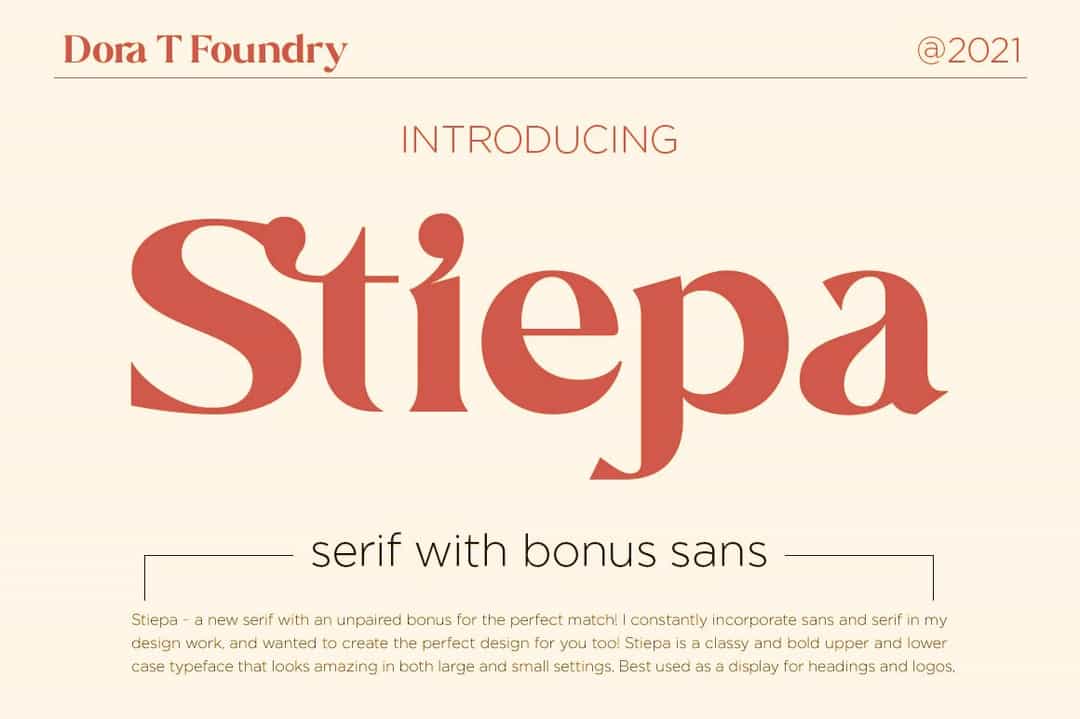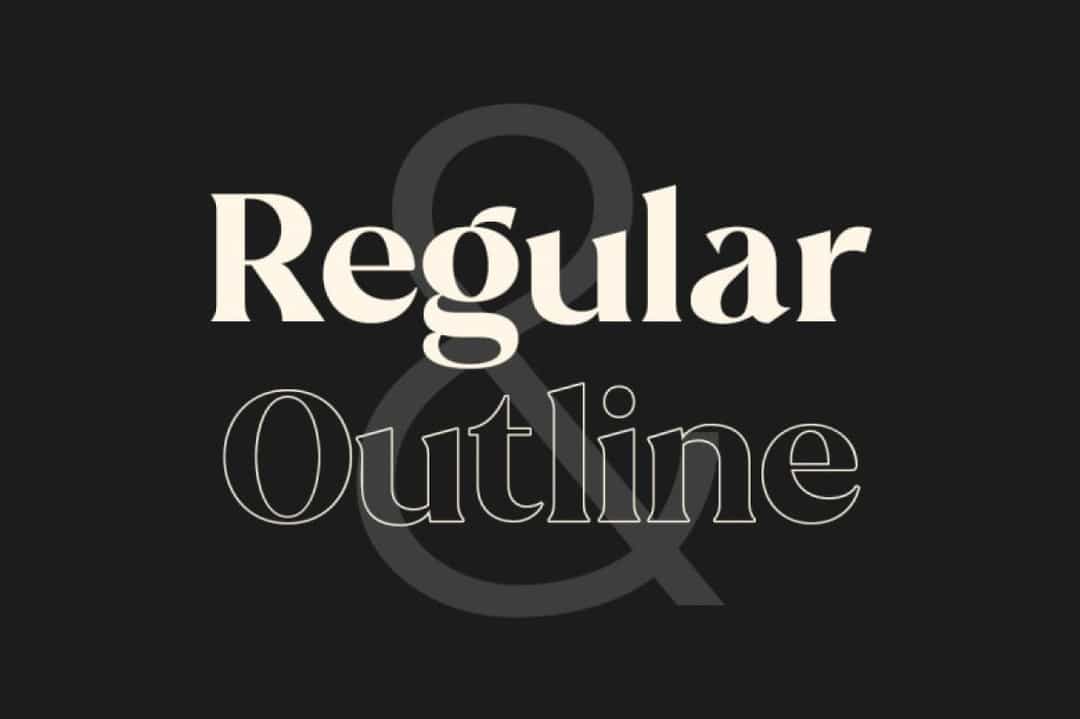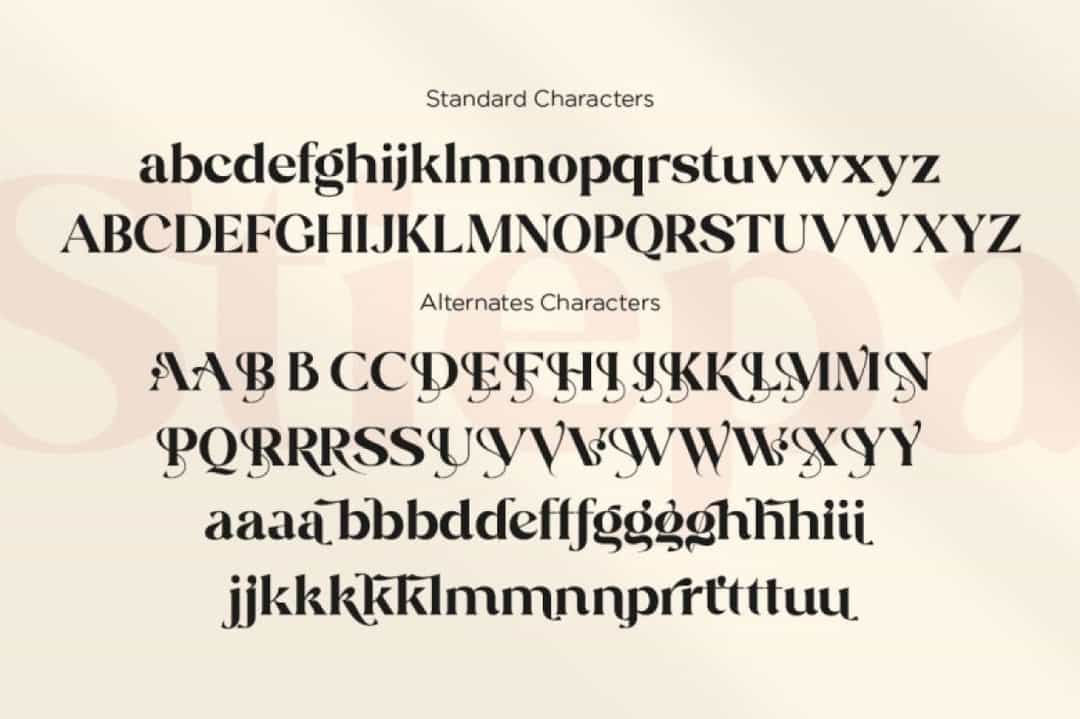
Discover Stiepa Font, part of the Serif collection—a versatile and unique font perfect for adding a personal touch to your projects. Download it for free and enjoy crafting designs with style, from invitations to social media posts. This font is available exclusively for personal use, giving you the freedom to create without limits. Unlock your creativity with Stiepa Font today!
Stiepa font is part of our new collection of fonts designed to offer creative freedom by mixing serif and sans. Use it to craft a stunning typographic style! Stiepa features stylish upper and lower case letters that look fantastic when set against each other in small or large settings – it is the ideal typeface for your forthcoming projects!